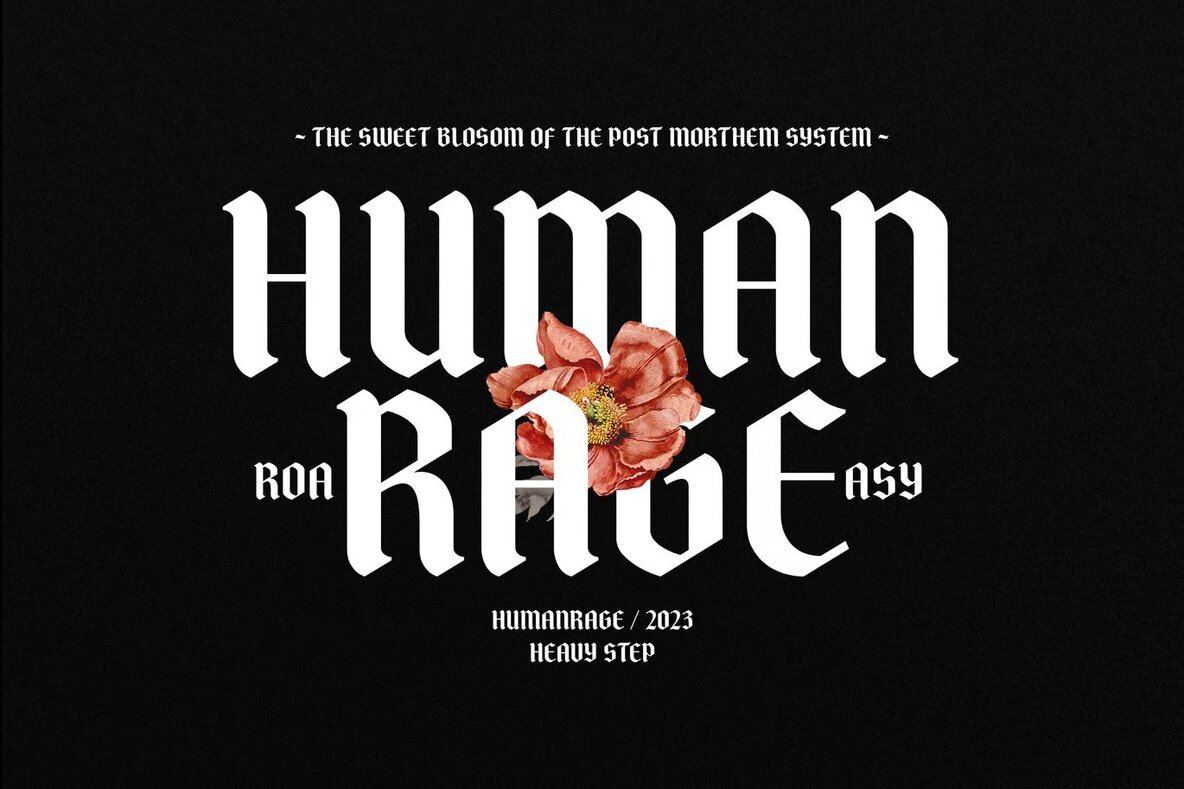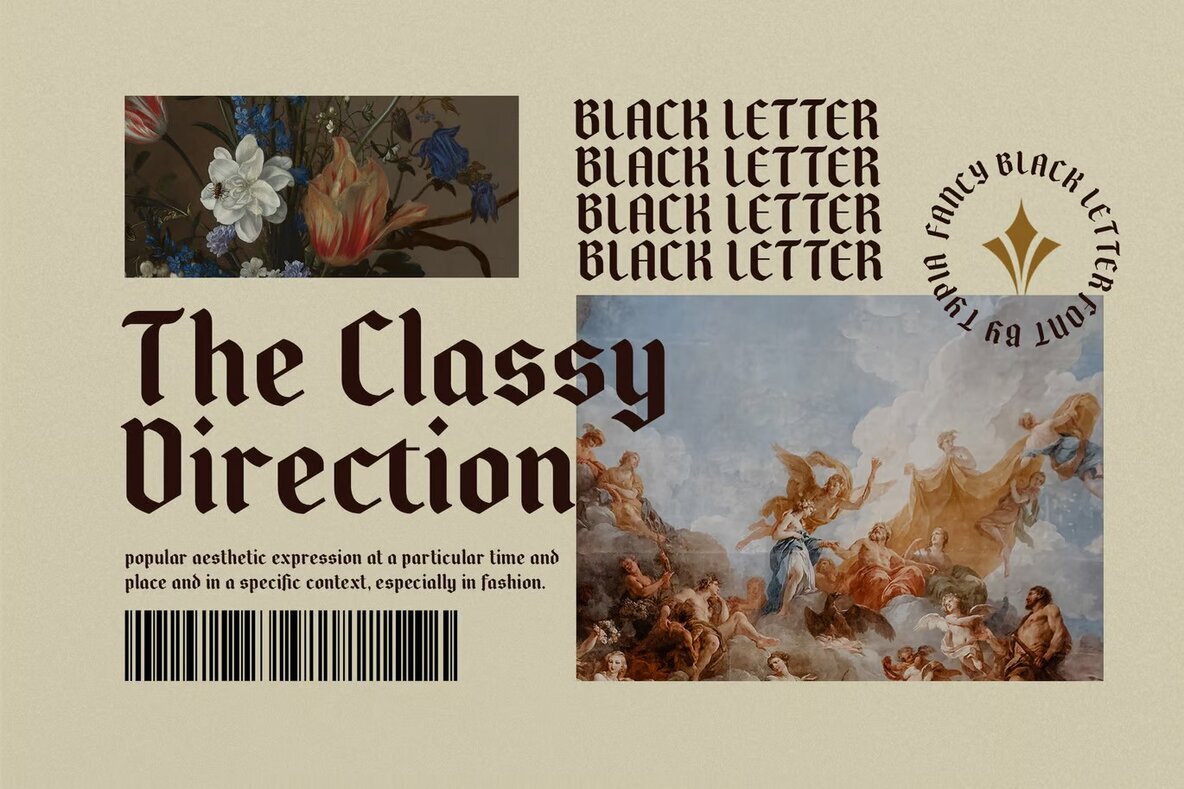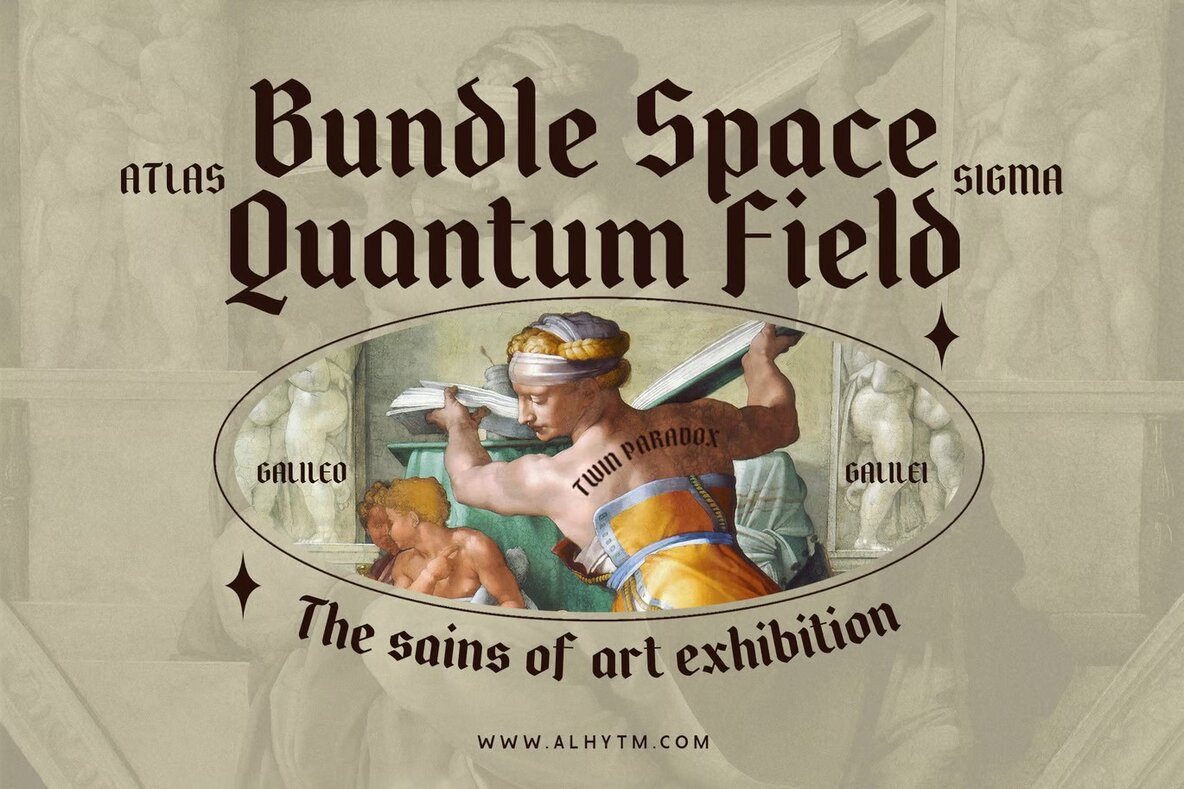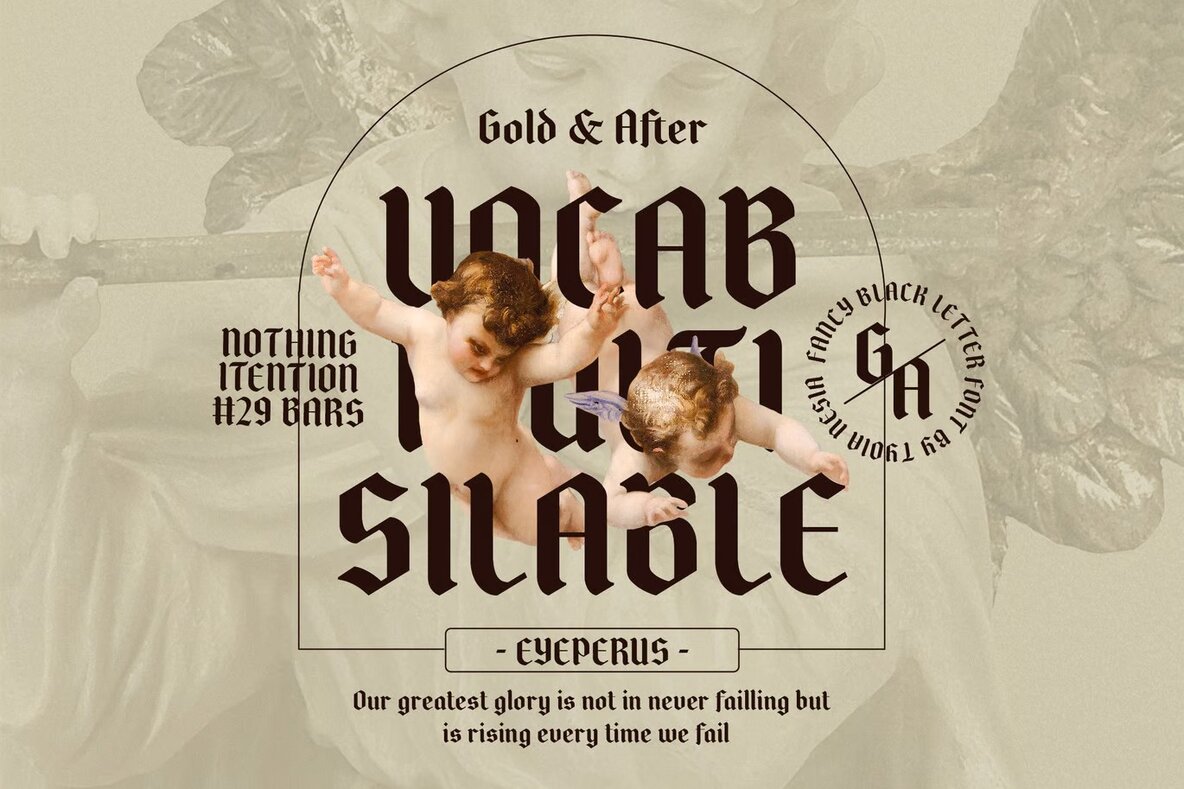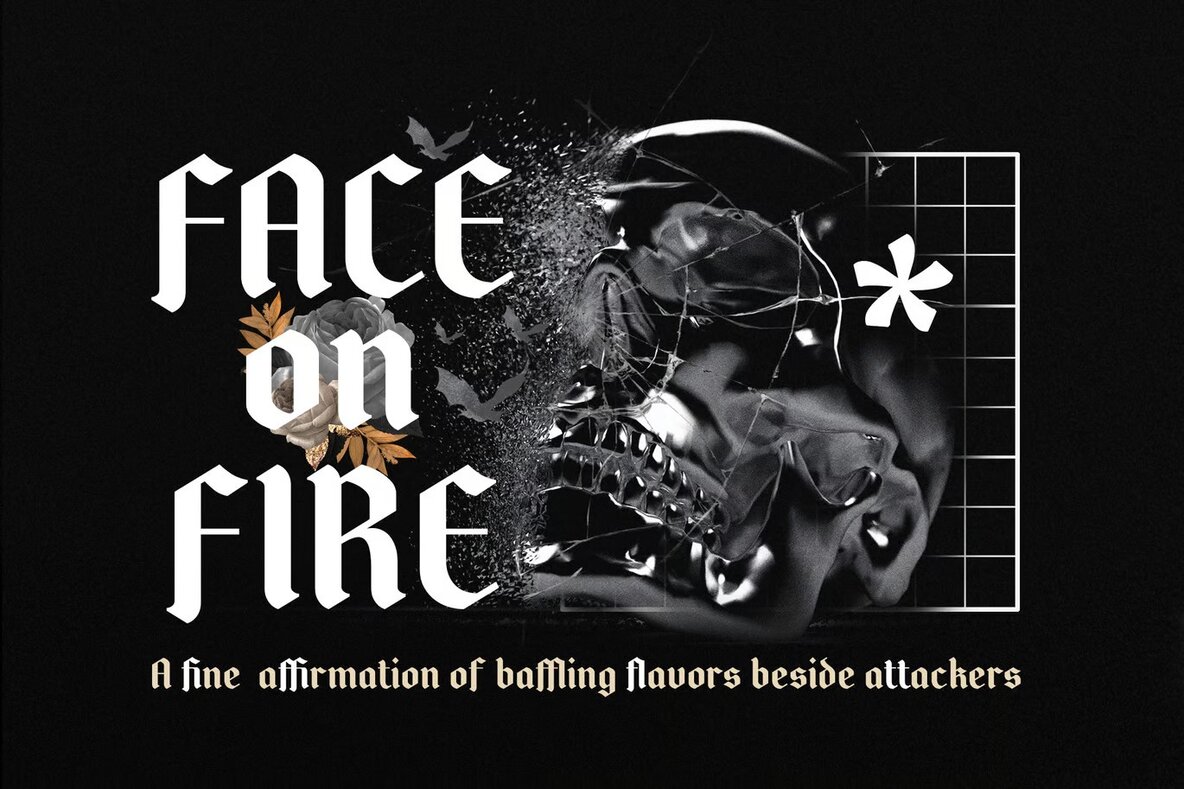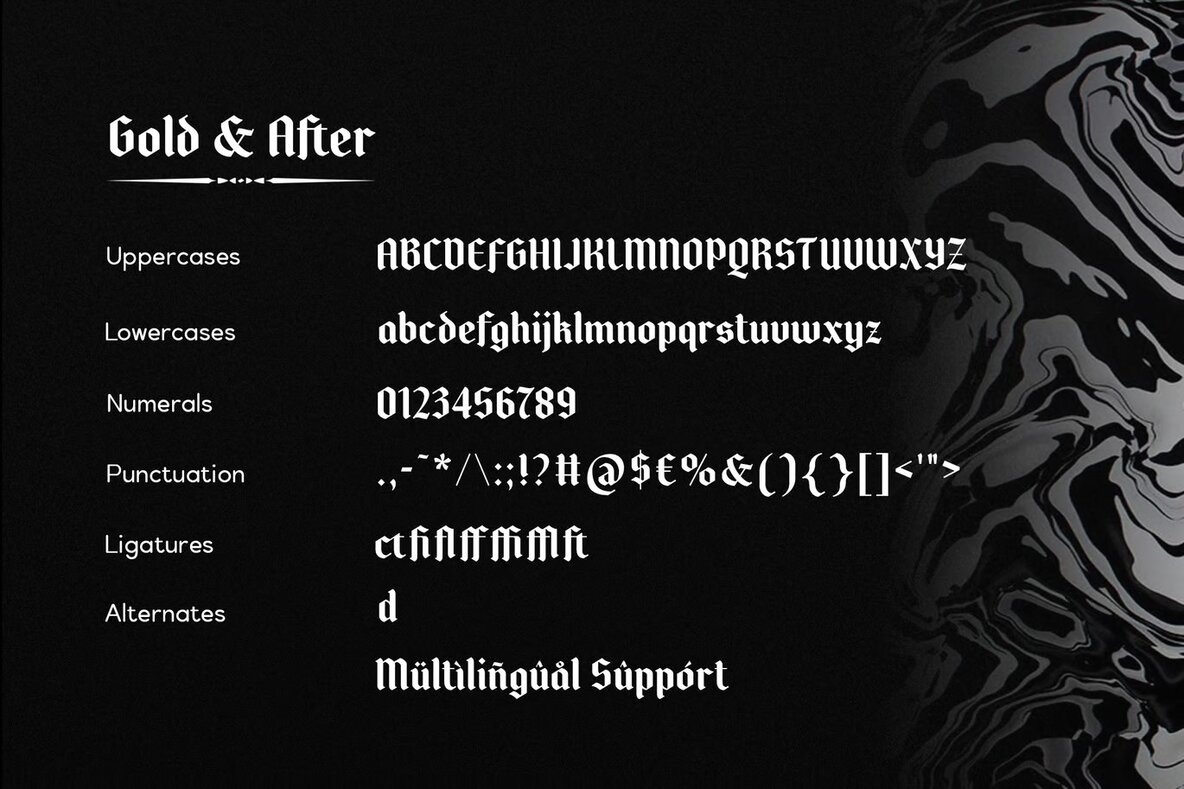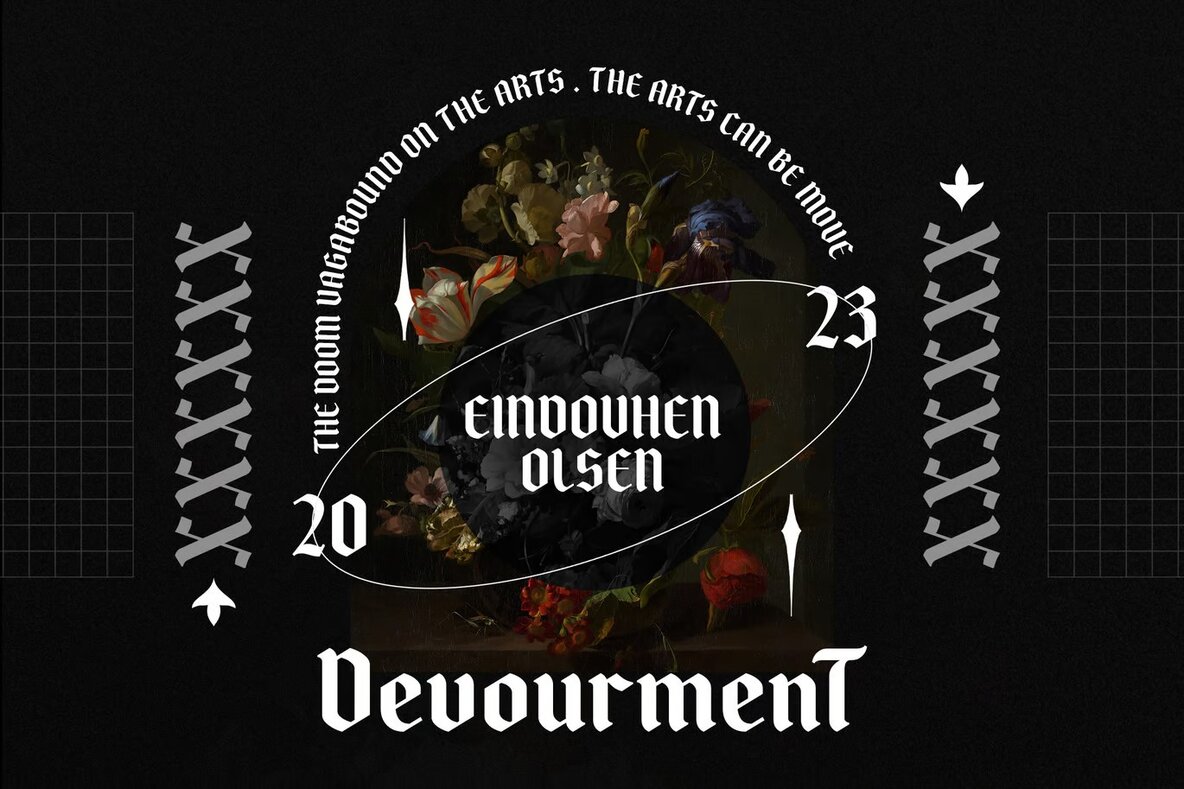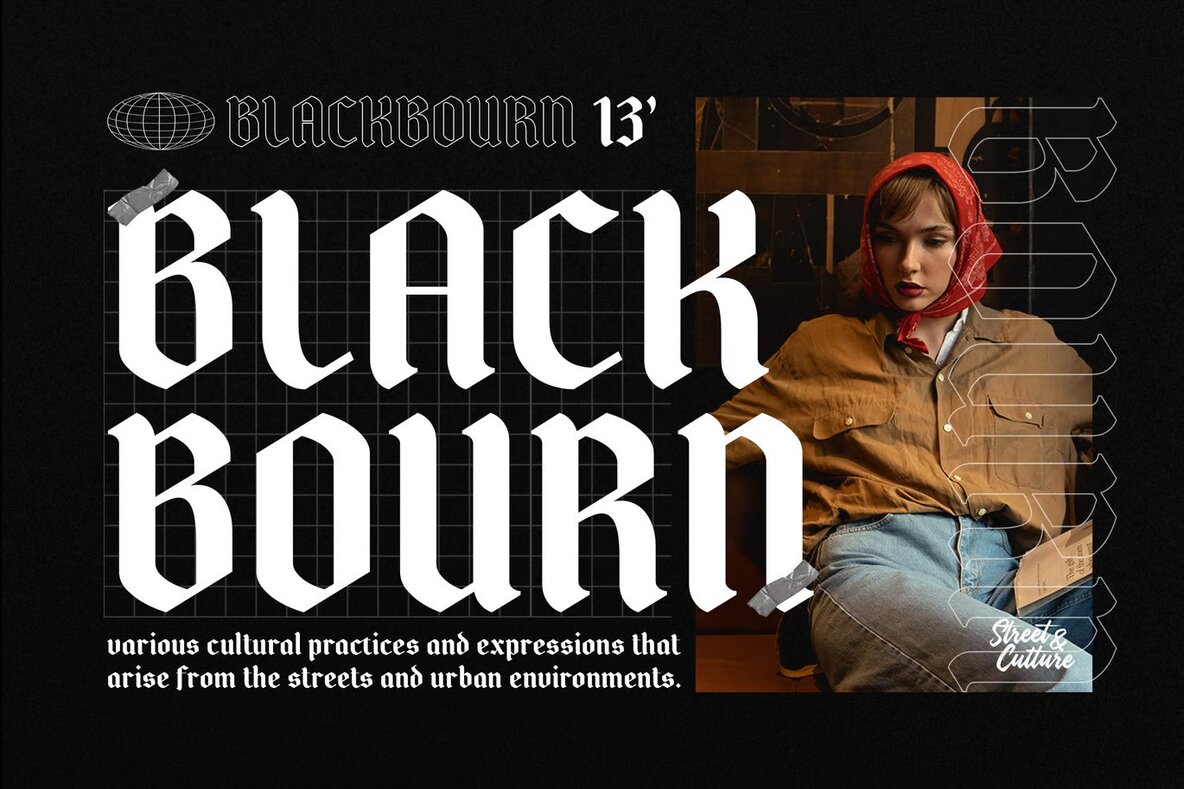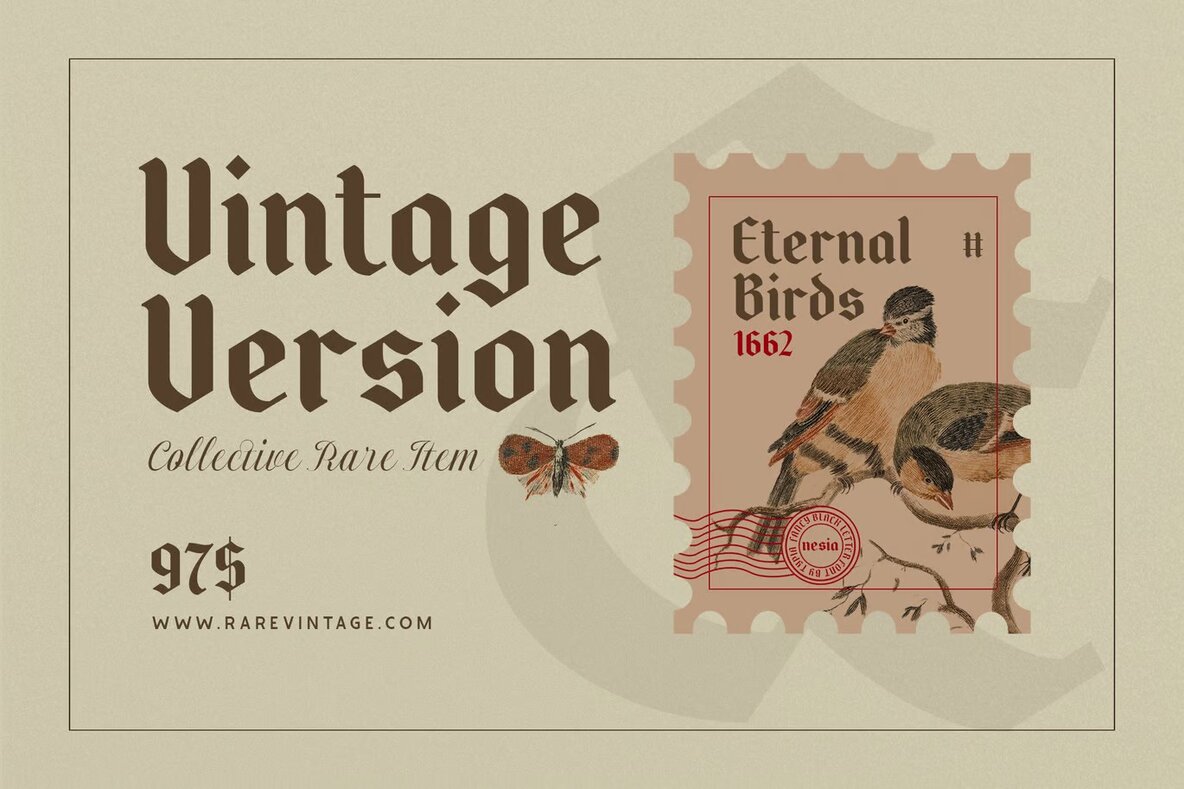
Gold and After Font
Gold and After Regular
Gold and After is a blackletter typeface exuding vintage elegance and a classic charm. With sharp edges and bold lines, it infuses traditional sophistication into your designs. This typeface is the perfect fit for branding, logos, packaging, headlines, and posters, giving your work a distinct, timeless appeal.
Ideal for diverse applications, Gold and After suits modern advertising, Halloween themes, gothic designs, apparel, and even hardcore music visuals. Whether you need it for animation, movie titles, editorial designs, or custom merchandise like mugs and t-shirts, this blackletter font adds a unique, standout quality to your projects.